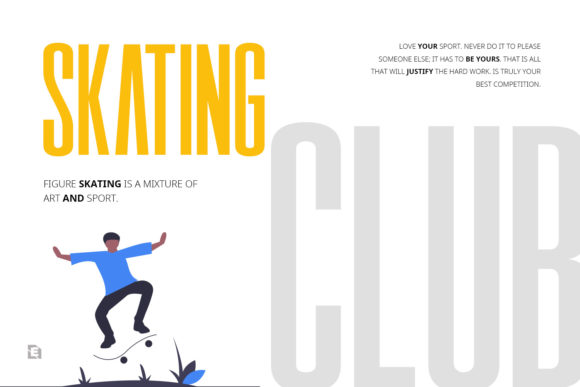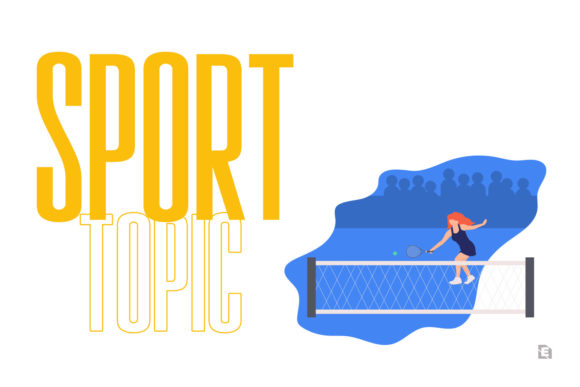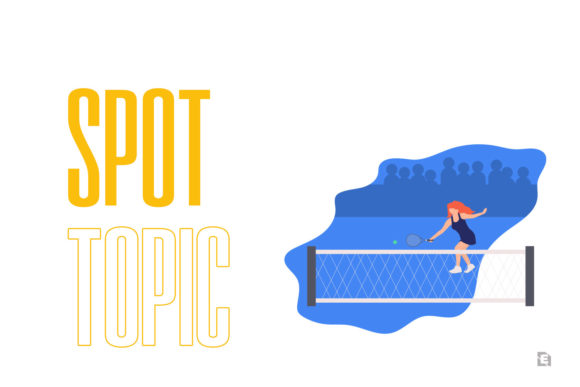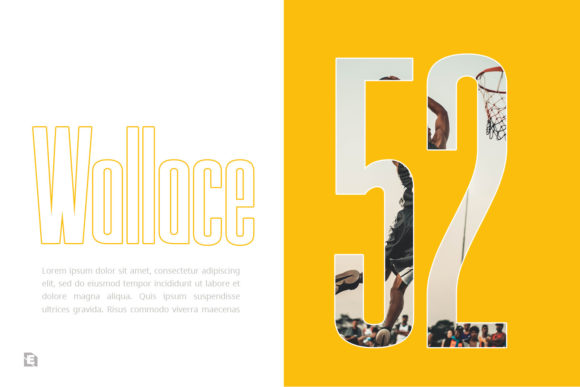
Introduction to Pedexel Font
Pedexel is a unique and modern display font, perfect for headlines, big text, branding, logotypes & display usage.
This font is the perfect choice for creating outstanding logos, promotional content, marketing graphics, or more .
Pedexel Font offers exceptional quality and versatility, making it a valuable addition to your design toolkit. Whether you’re creating for personal projects or commercial use, Pedexel Font delivers professional results.